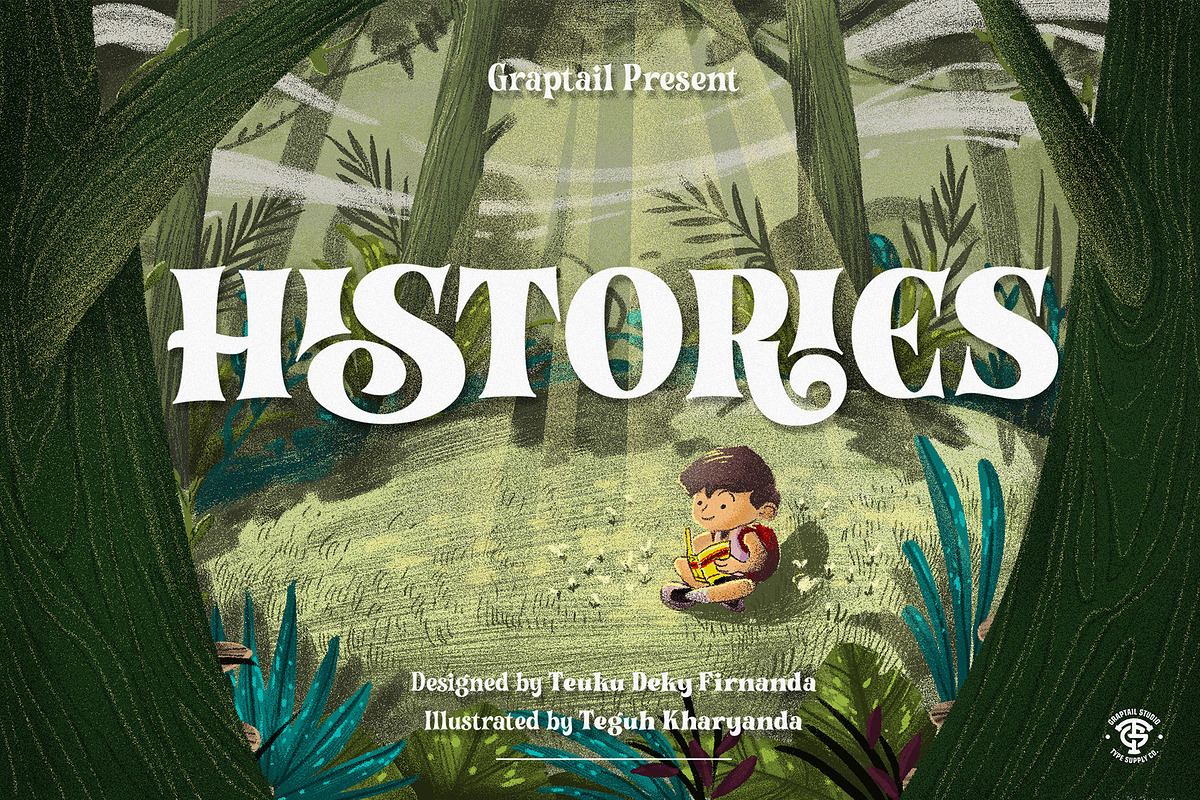
Histories - Fairytale Typeface Free Download
Whimsical, magical, and full of charm, Histories - Fairytale Typeface Free Download is a typeface inspired by the enchanting world of fairytales. Perfect for storybooks, posters, event invitations, branding, and social media graphics, this font adds a whimsical, imaginative touch to any design.
With its playful curves and intricate details, Histories brings the feel of a fairytale world to life, making it ideal for projects that need to feel magical, enchanting, and full of wonder. Whether you’re creating designs for a fantasy event, children’s book, or dream-inspired brand, this font will elevate your project with its captivating style.